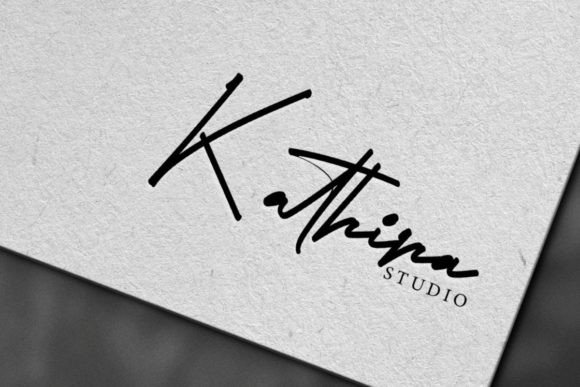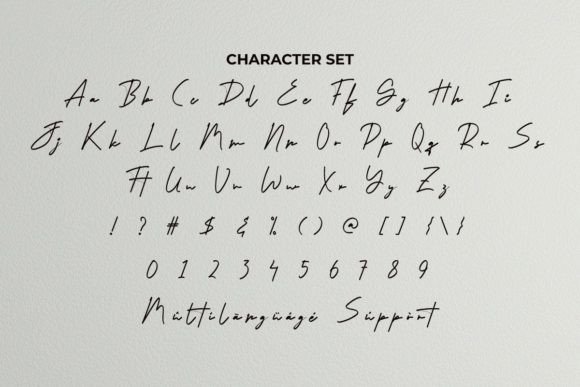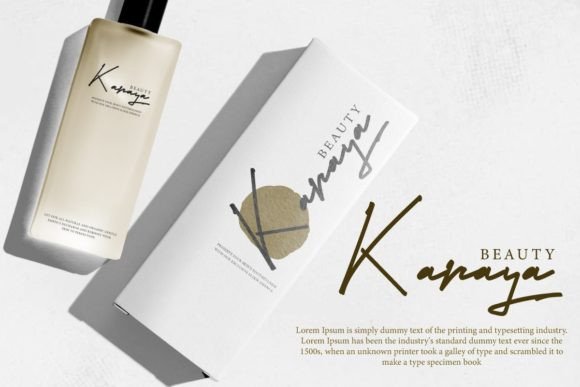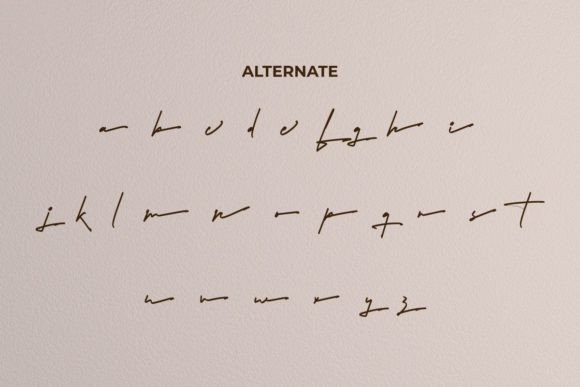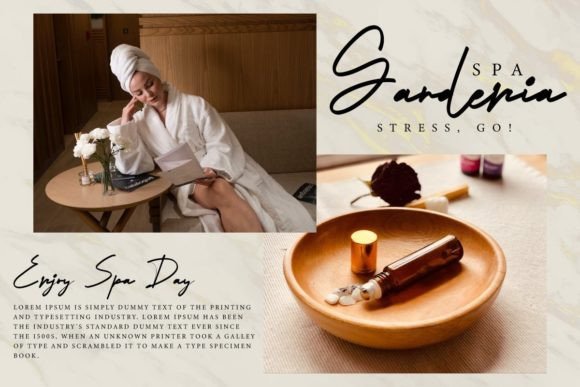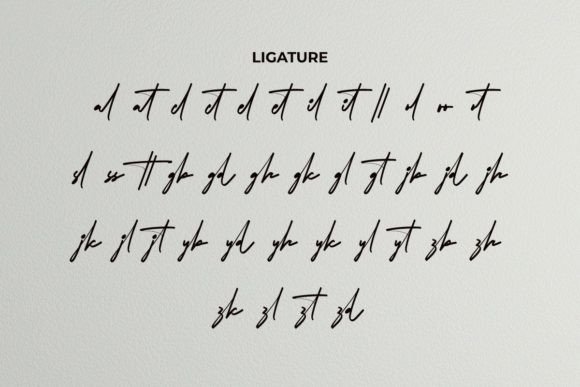
Introduction to Ivanka Rachel Font
Ivanka Rachet is an authentic signature style font and has a natural flow.
Now you can create a custom personal signature It is suitable for industries like beauty products, business, crafts, jewelry, publishing, printing, culinary, café, hotel, spas, or anything that needs signature looks.
Key Features of Ivanka Rachel Font